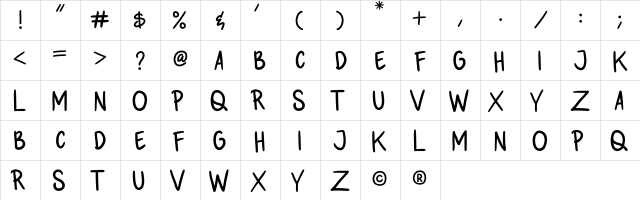
SKETSO Regular
| Designer | Daniel Herdianto |
Design Context for SKETSO Typeface
SKETSO takes a measured approach to typography — its balanced proportions and neutral character make it a reliable workhorse for both digital and print work.